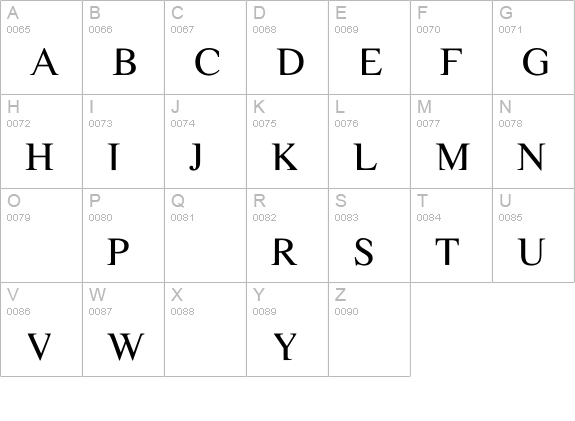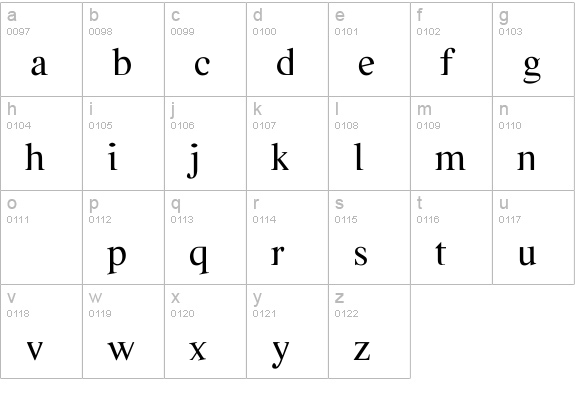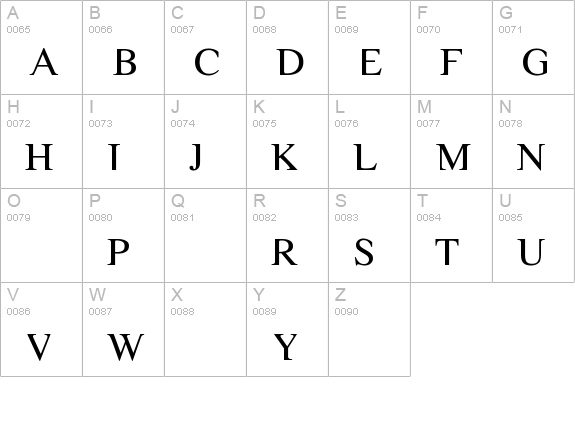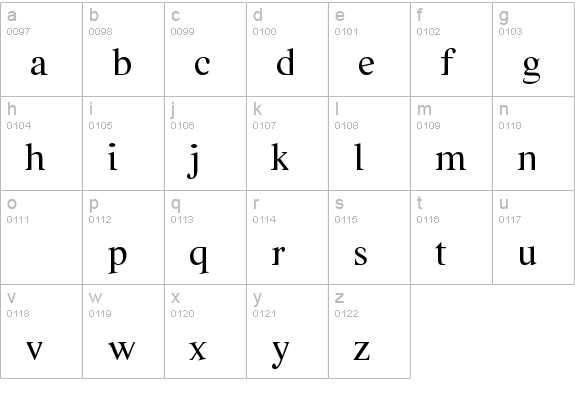
HardTimes Font Details
Introducing HardTimes, a bold and dynamic font that embodies the essence of resilience and determination. With its sharp angles and strong lines, this typeface commands attention and exudes a sense of unwavering strength. Designed for those who embrace challenges head-on, HardTimes is the perfect choice for projects that require an edgy and fearless aesthetic. Whether you're designing a motivational poster, a rebellious album cover, or a powerful logo, this font will elevate your work to new heights. But what sets HardTimes apart from other fonts is that it is not only visually captivating, but it is also free. That's right! You can freely download this font, no strings attached, from FontsMarket.com. We believe that creativity should be accessible to all, and by making HardTimes available to everyone, we hope to inspire and empower designers worldwide. Every character in HardTimes has been carefully crafted to capture the essence of strength and resilience. From the sharp edges of the uppercase letters to the bold strokes of the lowercase, each glyph tells a story of determination and the ability to overcome obstacles. This font will infuse your designs with a powerful energy that resonates with your audience. Whether you're a professional designer or a passionate hobbyist, HardTimes will be your trusted companion on your creative journey. Its versatility allows it to shine in various design applications, from branding and advertising to social media graphics and website headers. So why wait? Embrace the spirit of resilience and download HardTimes today from FontsMarket.com, where it is freely available. Unleash your creativity and make a statement with this bold and impactful font. Remember, in the face of challenges, HardTimes always prevails.